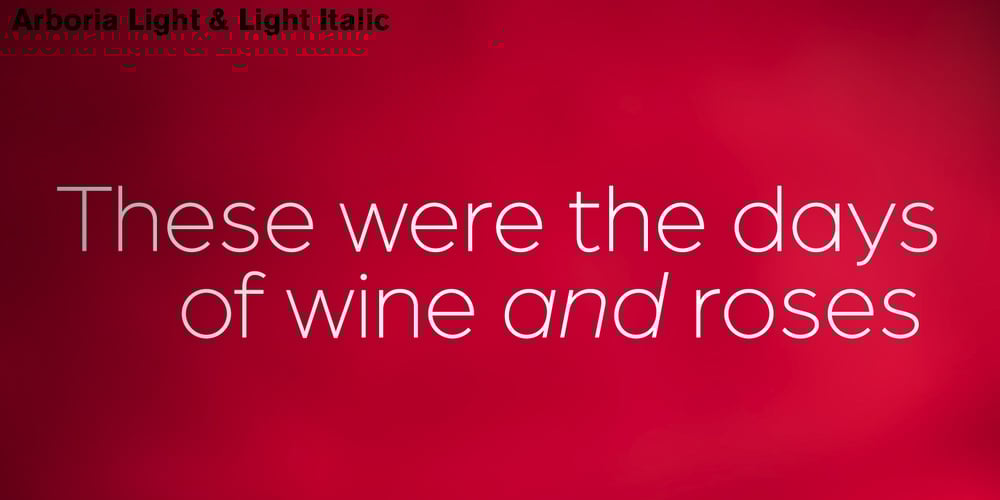
Arboria Font Family was designed by José Manuel Urós and published by Type-Ø-Tones. Arboria contains 12 styles and family package options. Arboria has been a long-term project. Starting with the commission of a custom ‘architect’ font, this typeface has been changing over the years to its current form, which is its public debut. The source is named after the capital of planet Mongo, a futuristic city with art decó influences in their buildings. Arboria maintains that tension but is influenced by all elements of concern to his author. The result is a hybrid Grotesque with nods to the XXII century. Arboria family consists of six weights and matching italics, aside from many characters (it covers Latin and CE languages), the wide range OpenType features allows Arboria to perform great as a text and as a display typeface. Please check the ‘Read me’ file for more specifications.